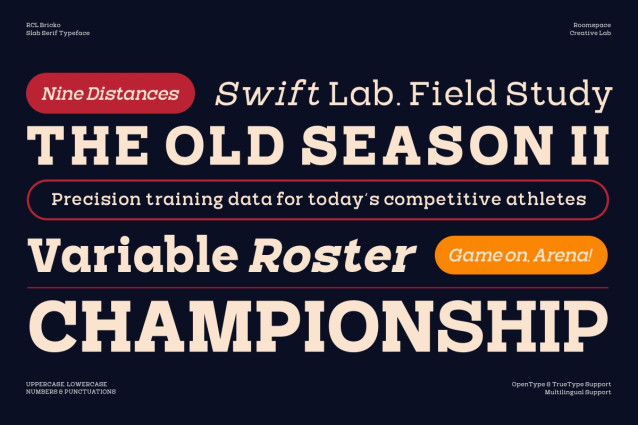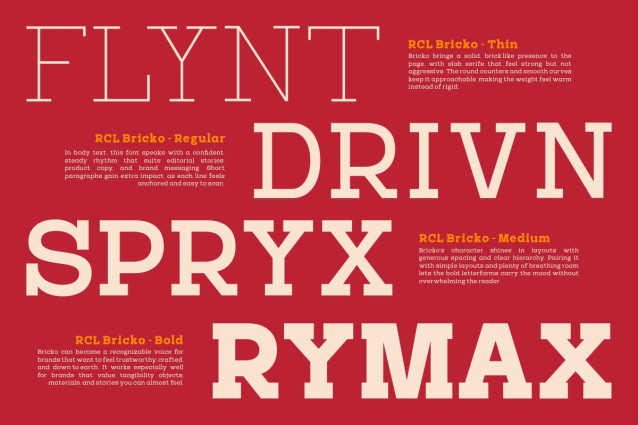
RCL Bricko Font
RCL Bricko Font is a modern slab serif font family with a strong character, solid structure, and high readability. Inspired by editorial typography and contemporary branding, Bricko feels bold yet clean ideal for designs that aim to appear confident, professional, and trustworthy. Meet Bricko, a modern slab serif font family designed to bring strength, clarity, and confidence into your designs. With solid letterforms and clean proportions, Bricko works beautifully for branding projects, editorial layouts, and bold headlines. Its versatility allows it to adapt effortlessly from corporate identities to modern digital layouts, making Bricko a dependable choice for contemporary creatives.